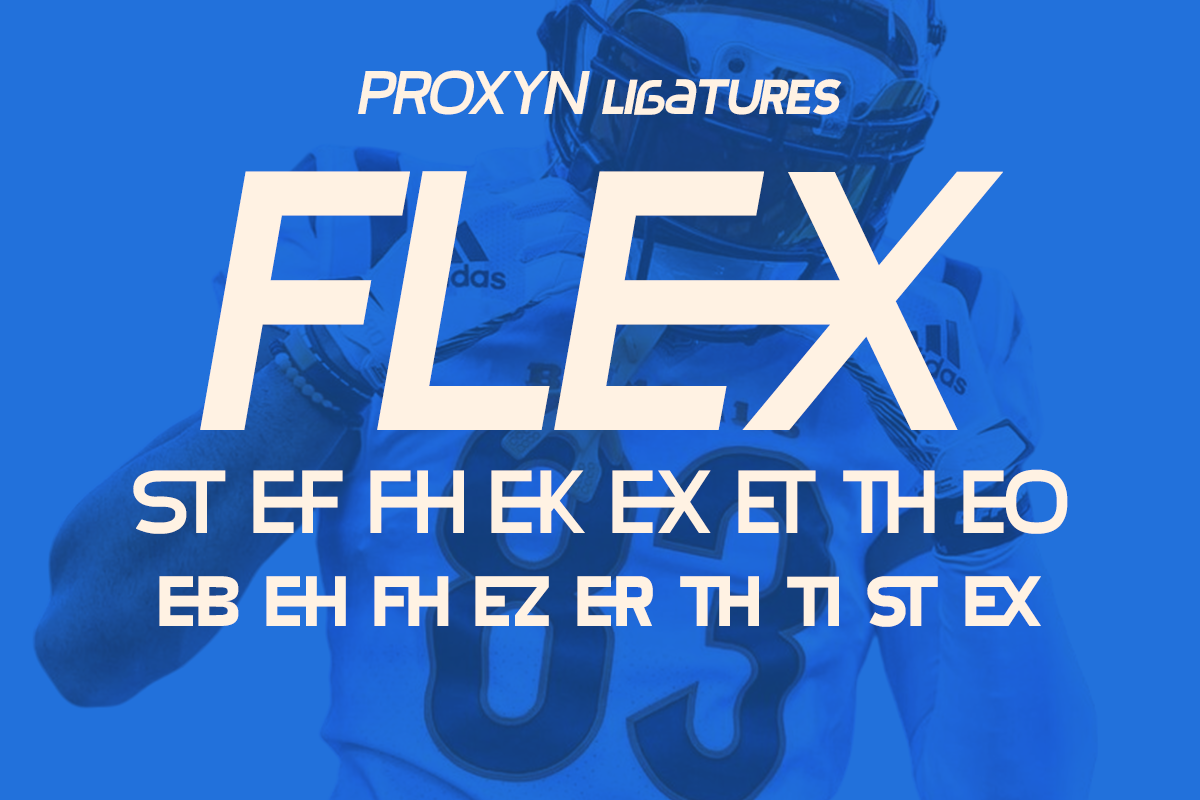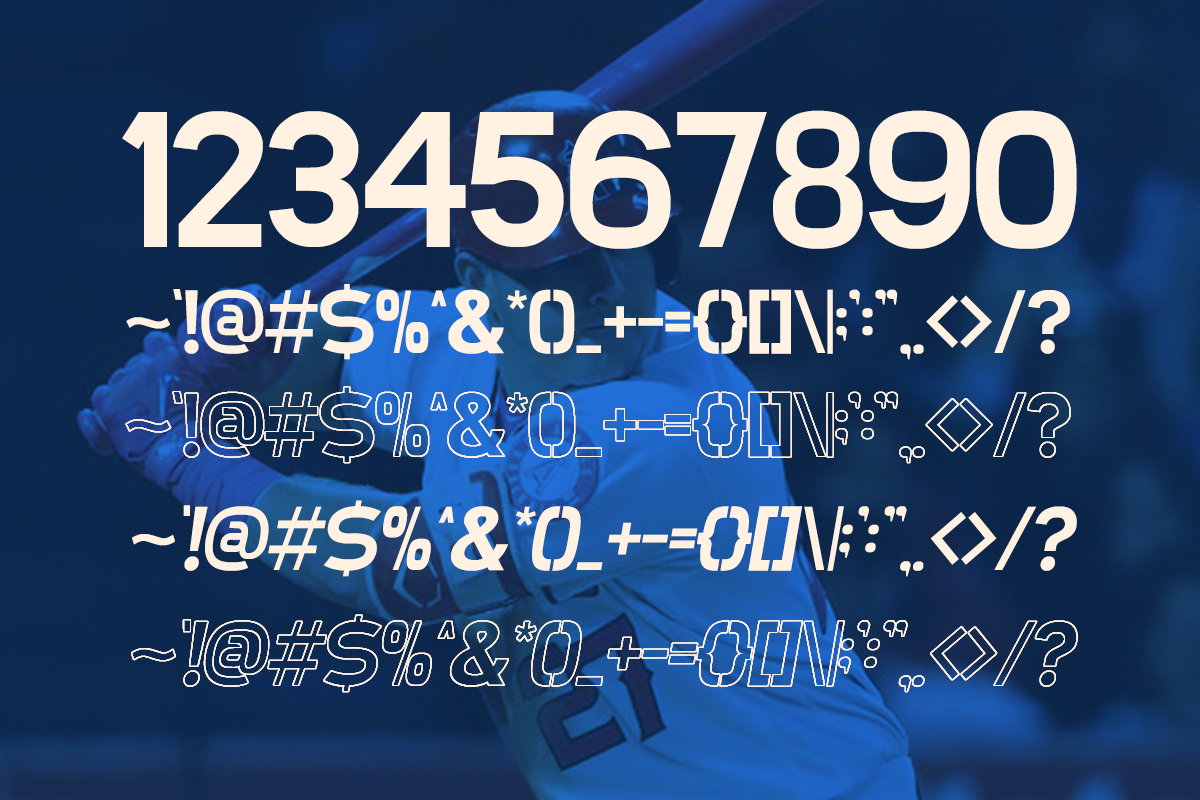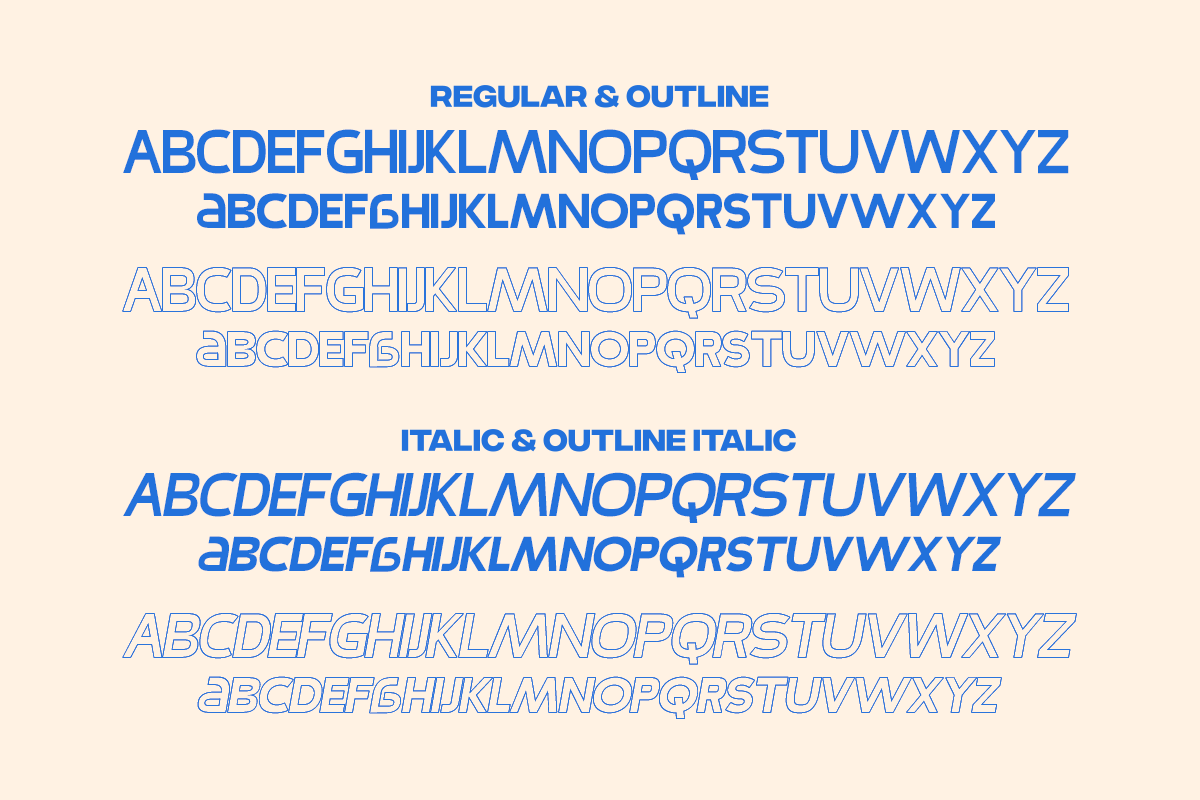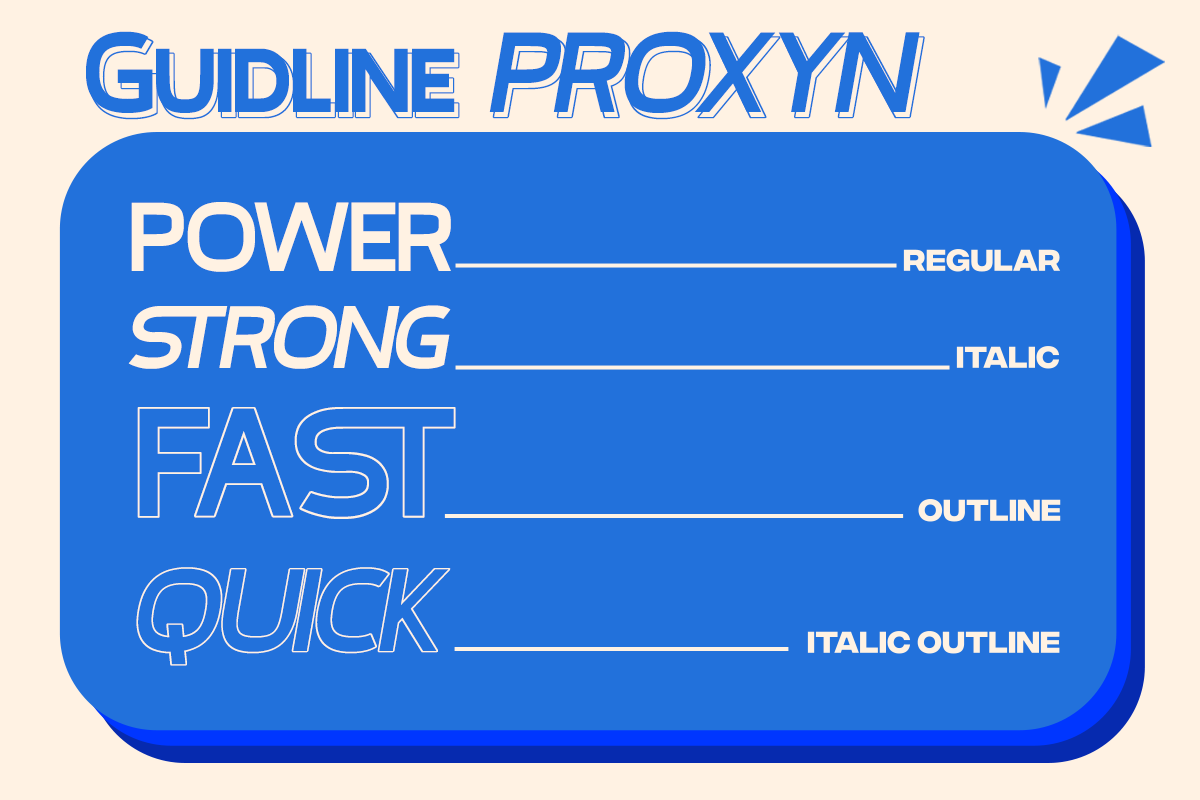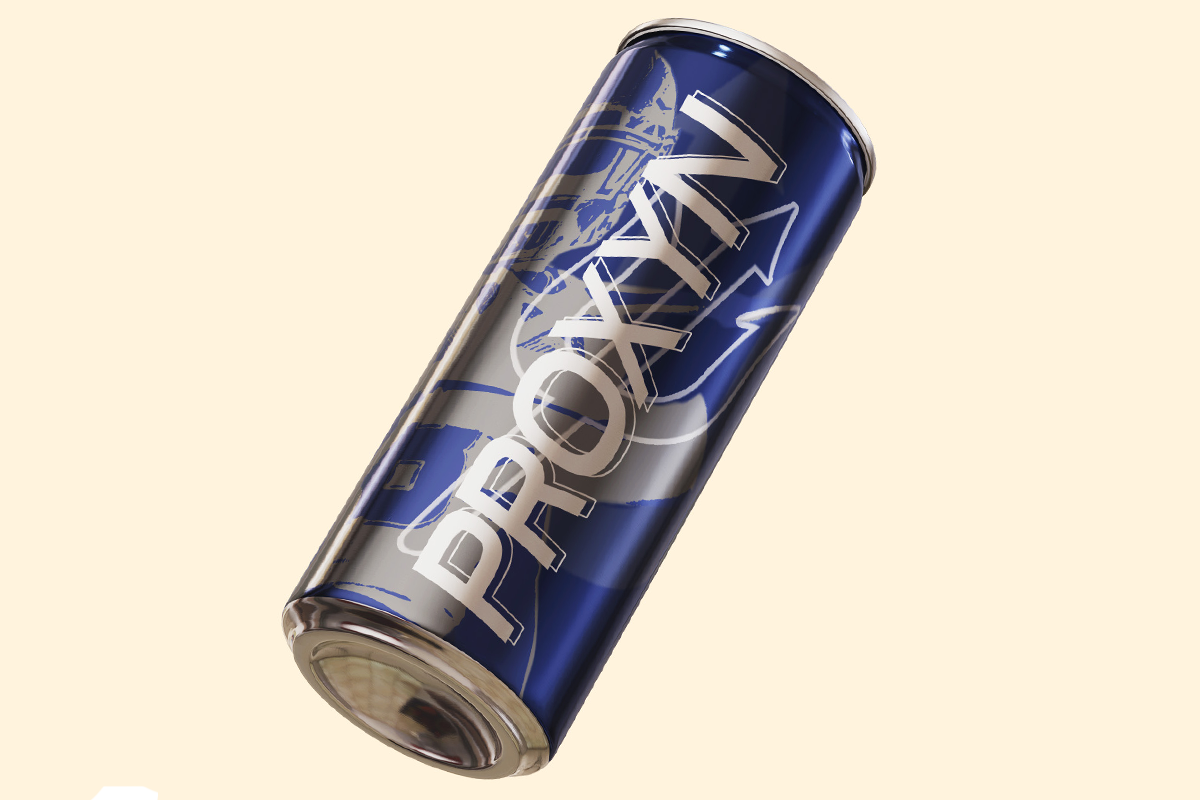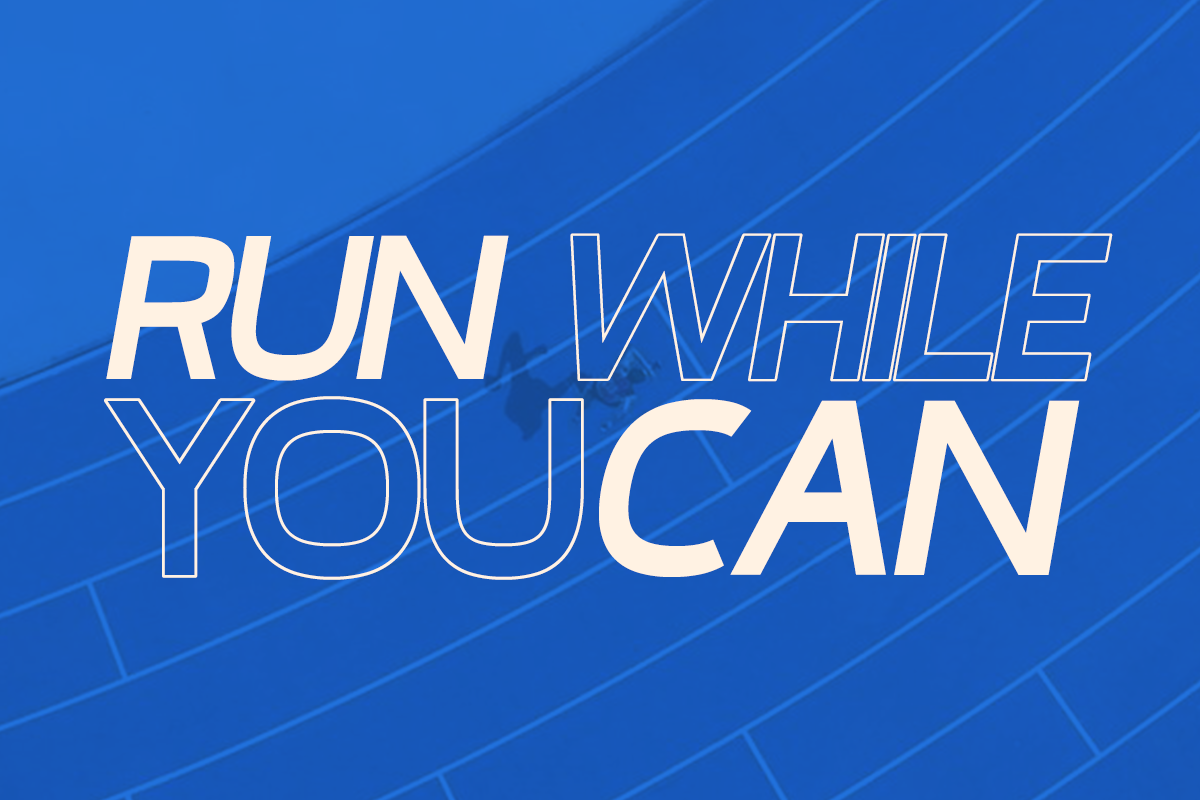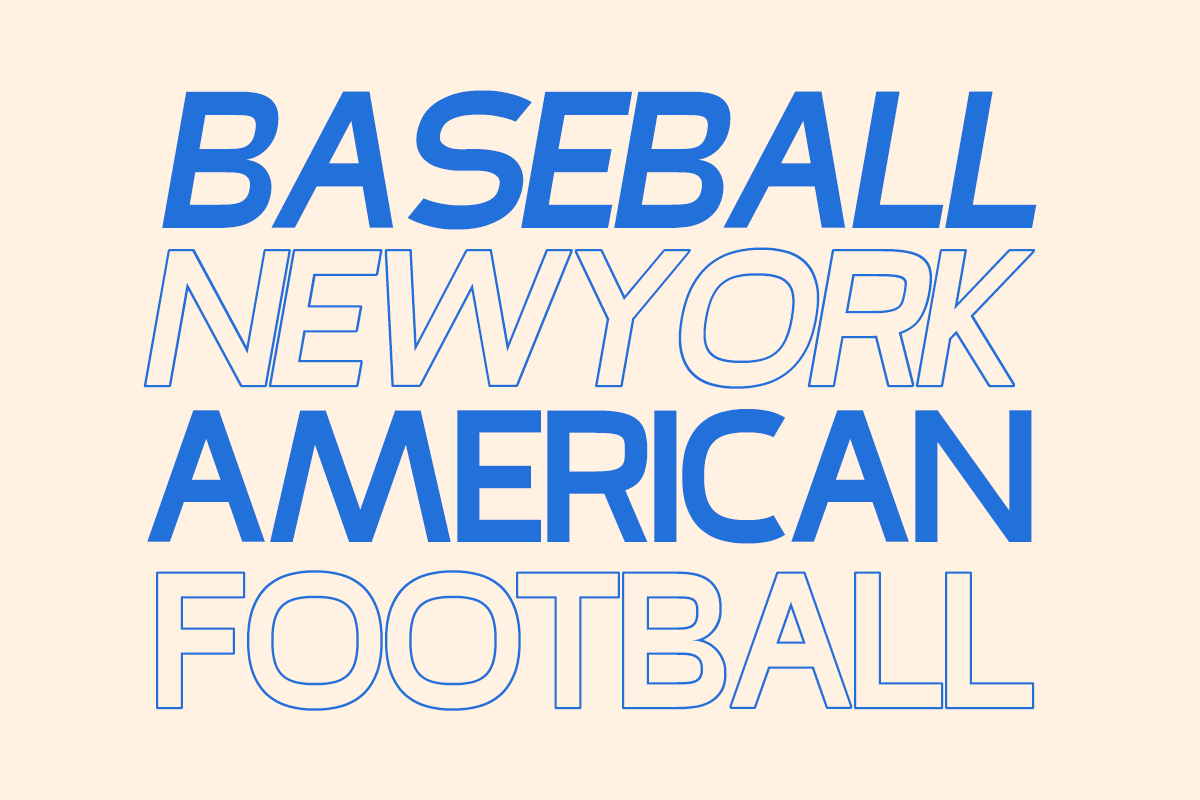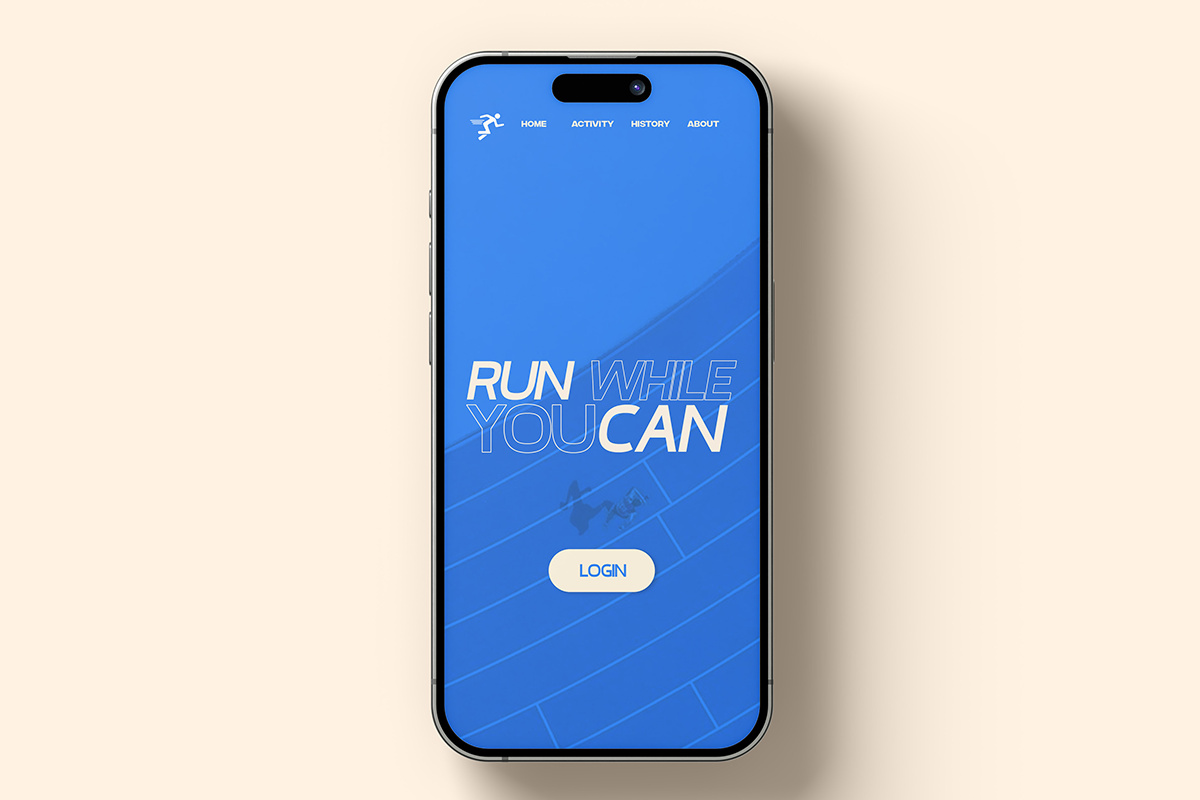
Proxyn - Sans Sport
Introducing Proxyn, a speed display font designed to elevate your designs with its visual elegance, smooth curves, and beautiful ligatures!
Proxyn is a versatile display font that stands out in both large and small sizes. It’s perfect for a wide range of projects such as invitations, logos, branding, magazines, photography, cards, product packaging, mugs, quotes, posters, labels, signatures, and more.
With styles including Regular, Italic, Outline, and Italic Outline, Proxyn adds a dynamic touch to your typography, ideal for creating designs that evoke the energy of baseball and sports-themed aesthetics.
- Offers 4 styles: Regular, Italic, Outline, and Italic Outline.
- Unique letterforms